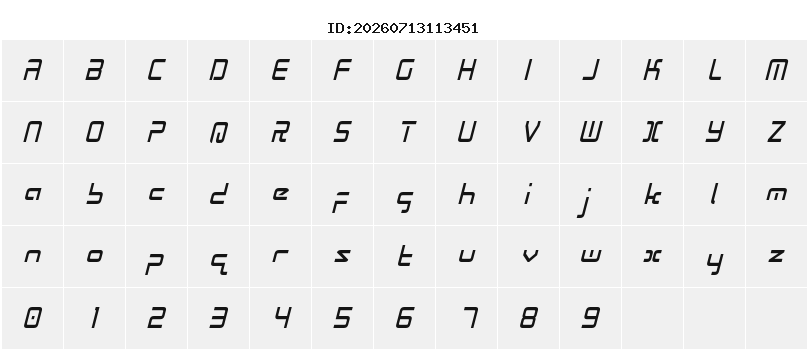
Radio Space Condensed Italic Preview
• Font Name: Radio Space Condensed Italic
• Font Style: Condensed Italic
• Full Font Name: Radio Space Condensed Italic
About Radio Space Condensed Italic.ttf
Radio Space Condensed Italic.ttf is a modern, elegant sans-serif font designed for ultimate readability and visual harmony. Perfect for branding, headlines, web design, and print materials.